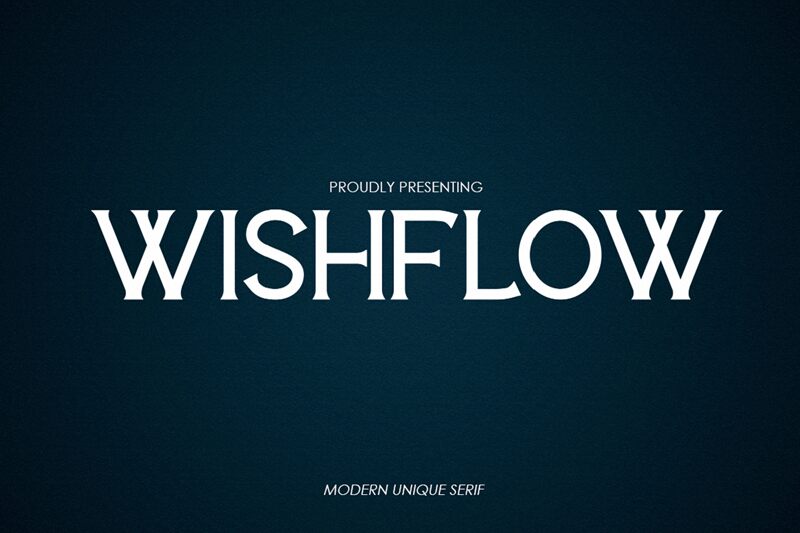
WISHFLOW
Wishflow, a captivating serif font designed by Typeline Studio, adds an elegant touch to any project.
Its semi-light weight exudes sophistication and enhances readability, making it perfect for editorial designs such as magazines and newspapers. With its timeless charm and refined curves, Wishflow effortlessly elevates branding materials, including logos and packaging. Additionally, this font's versatile nature lends itself well to formal invitations and wedding stationery, creating a sense of grace and elegance.